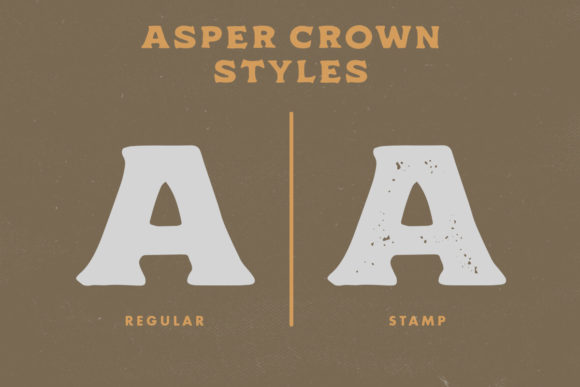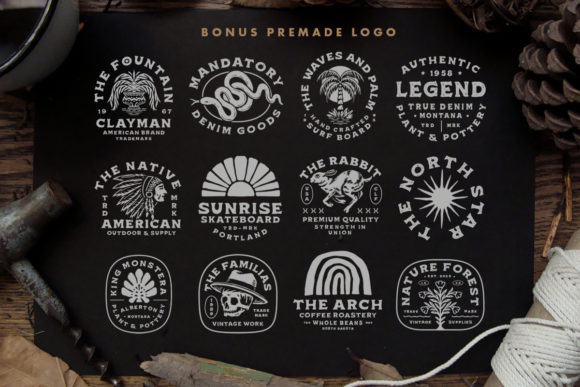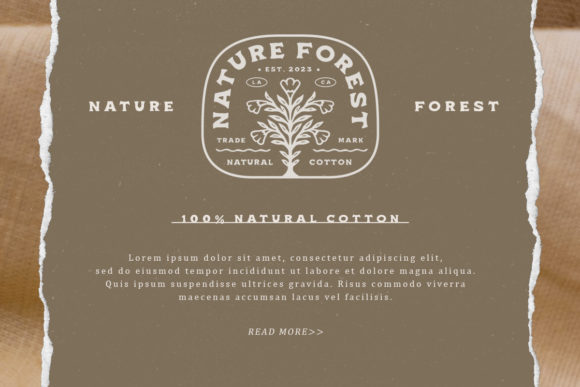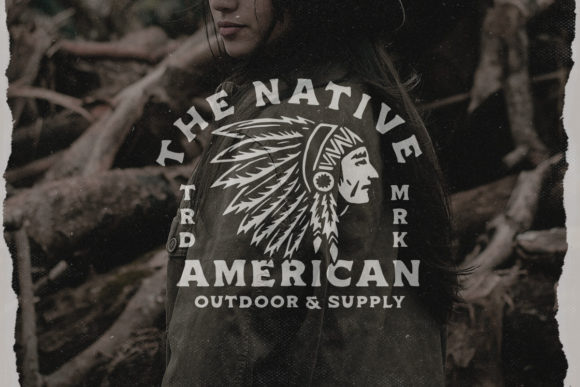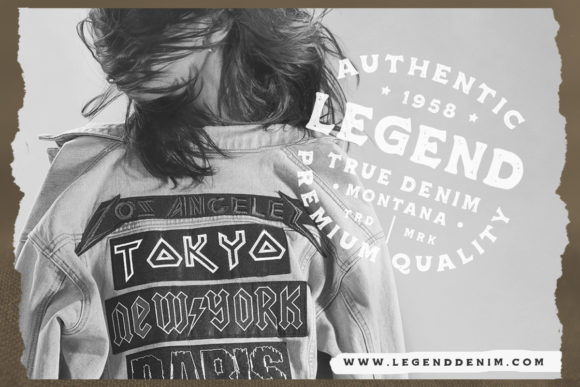
Introducing Asper Crown Font: The Ultimate Display Font for Bold Creations
Are you tired of using the same old fonts for your designs? Look no further! Asper Crown Font is here to take your creations to the next level. This cool, rough textured, and bold display font is perfect for designers and crafters who want to add a unique touch to their work. In this article, we’ll dive into the features and benefits of Asper Crown Font, and explore how you can use it to elevate your designs.
What is Asper Crown Font?
Asper Crown Font is a bold and eye-catching display font that features a rough, textured look. Its unique design makes it perfect for creating bold and striking headlines, titles, and captions. The font’s rough texture gives it a raw, edgy feel that’s sure to grab attention. Whether you’re designing a logo, brochure, or social media post, Asper Crown Font is sure to make your creation stand out.
Key Features of Asper Crown Font
- Bold and Eye-Catching: Asper Crown Font is designed to make a statement. Its bold and eye-catching design makes it perfect for creating striking headlines and titles.
- Rough Textured Look: The font’s rough texture gives it a raw, edgy feel that’s sure to add a unique touch to your designs.
- Display Font: Asper Crown Font is specifically designed as a display font, making it perfect for use in headlines, titles, and captions.
Benefits of Using Asper Crown Font
So why should you choose Asper Crown Font for your designs? Here are just a few benefits of using this amazing font:
- Adds a Unique Touch: Asper Crown Font’s rough textured look adds a unique touch to your designs, setting them apart from the rest.
- Grabs Attention: The font’s bold and eye-catching design makes it perfect for grabbing attention and drawing the reader in.
- Versatile: Asper Crown Font can be used in a variety of design projects, from logos and brochures to social media posts and more.
- Time-Saving: With Asper Crown Font, you can create professional-looking designs in no time. Its easy-to-use design makes it perfect for designers of all levels.
How to Use Asper Crown Font
Using Asper Crown Font is easy! Here are a few tips to get you started:
- Pair it with Other Fonts: Asper Crown Font pairs well with other fonts, making it easy to create a cohesive look.
- Use it for Headlines: The font’s bold and eye-catching design makes it perfect for use in headlines and titles.
- Experiment with Colors: Asper Crown Font looks great in a variety of colors, so don’t be afraid to experiment and find the perfect look for your design.
In conclusion, Asper Crown Font is a cool, rough textured, and bold display font that’s perfect for designers and crafters who want to add a unique touch to their work. Its bold and eye-catching design makes it perfect for creating striking headlines and titles, while its easy-to-use design makes it accessible to designers of all levels. So why wait? Add Asper Crown Font to your favorite creations and let yourself be amazed by the outcome generated!